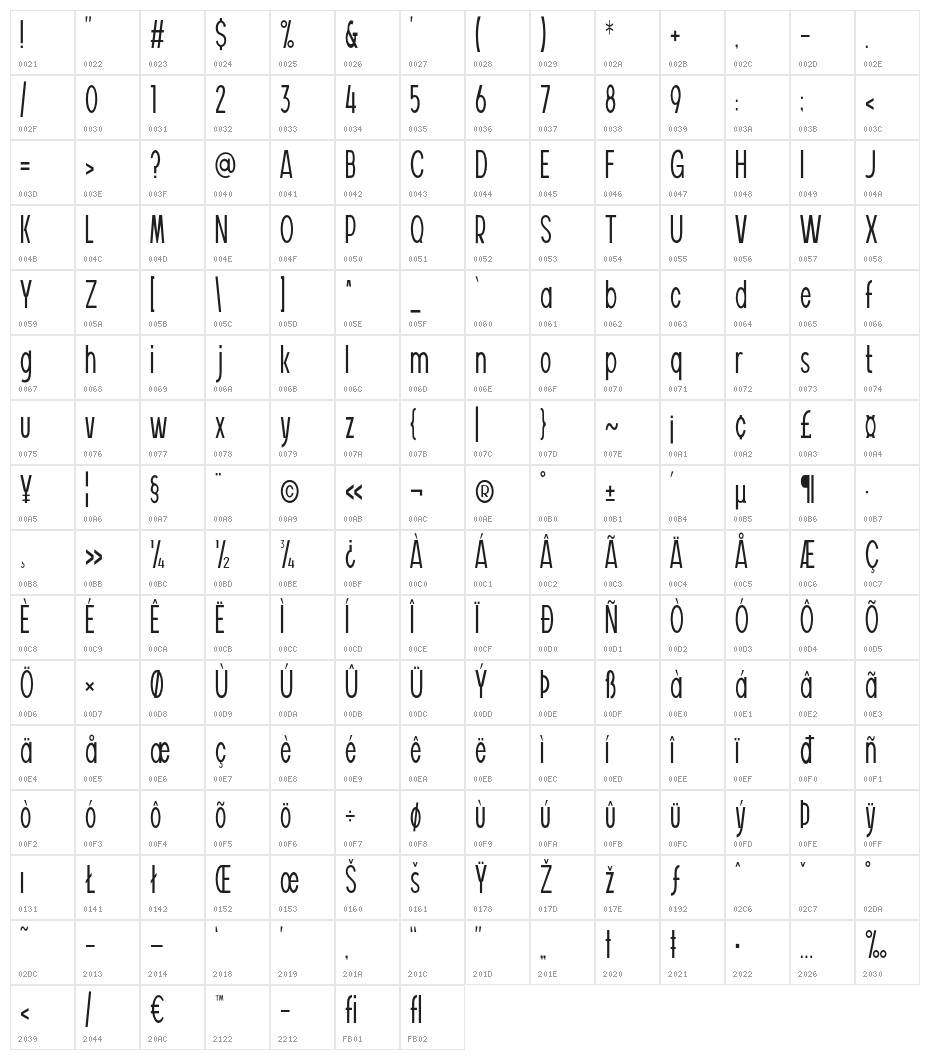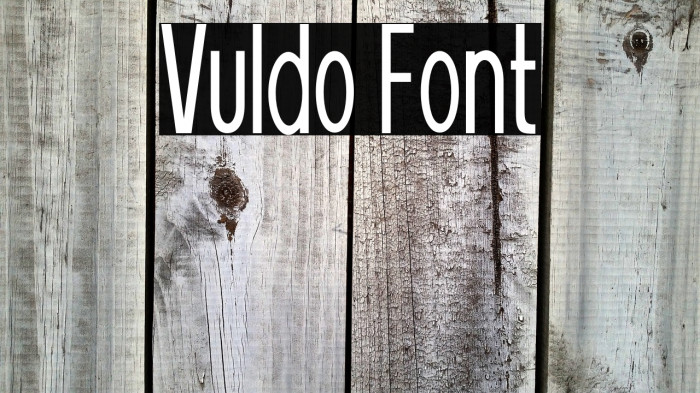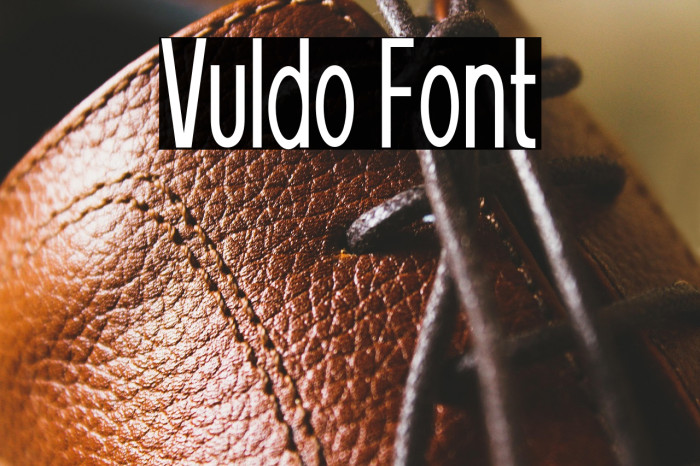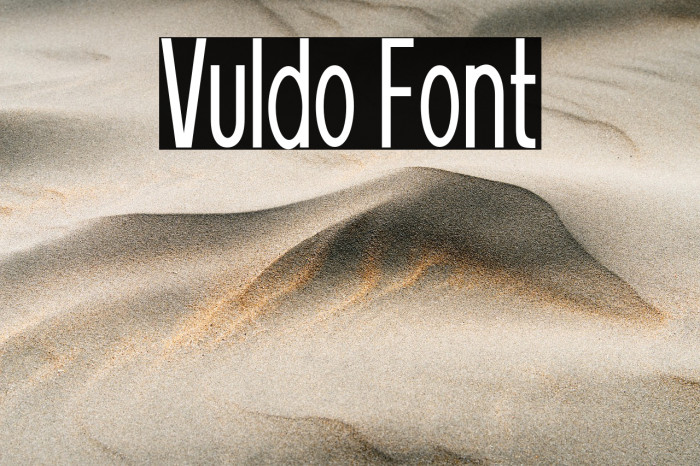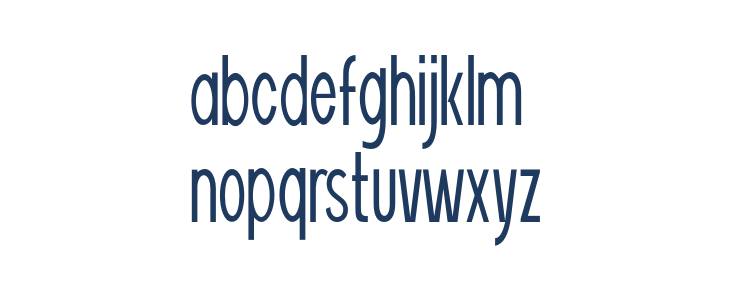
Vuldo Font
Vuldo Description
This font features a clean and modern sans-serif design with tall, narrow letterforms. The characters are uniformly structured, providing a sleek and contemporary appearance. The uppercase letters are bold and prominent, while the lowercase letters maintain a consistent style, ensuring readability. The numerals are straightforward and align well with the overall aesthetic. Special characters are included, offering versatility for various design needs. The font's simplicity and elegance make it suitable for a wide range of applications, from digital interfaces to print media.
| Proposed Projects | Ideal for branding, advertising, web design, and editorial layouts. |